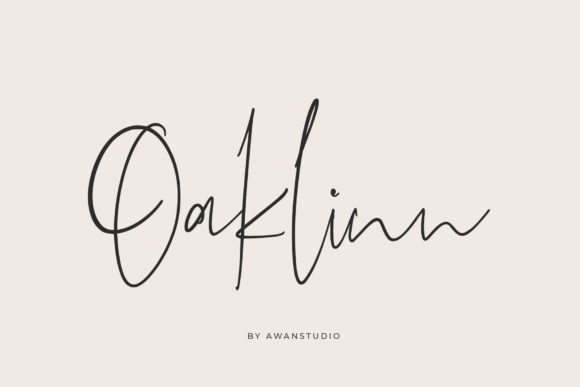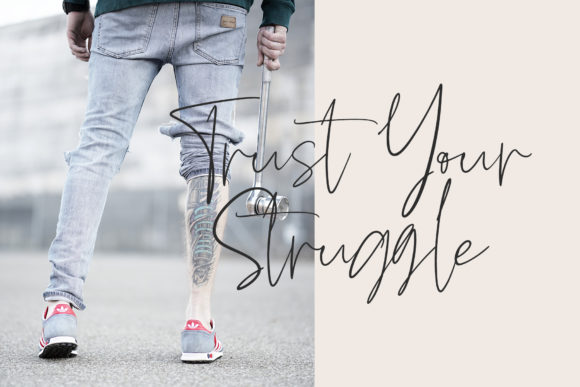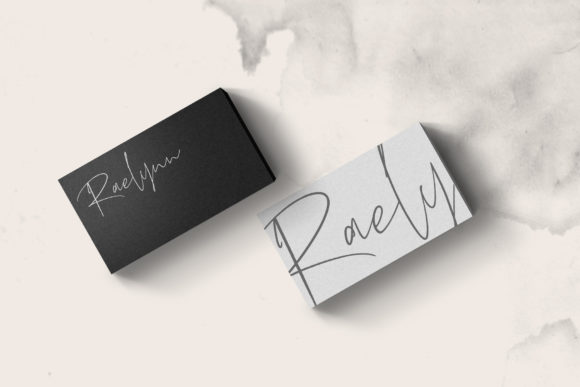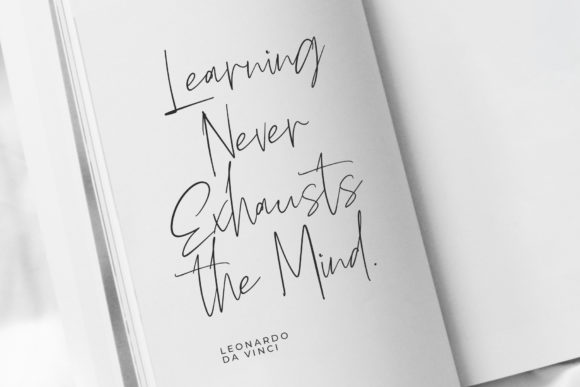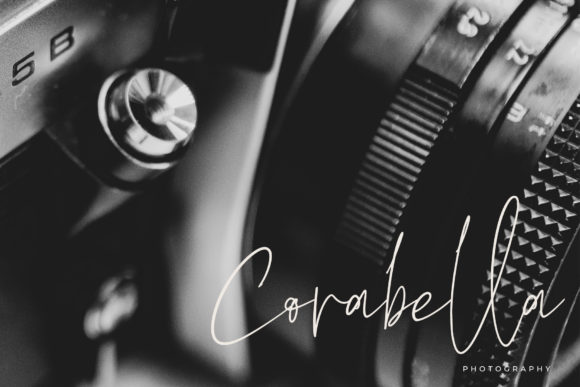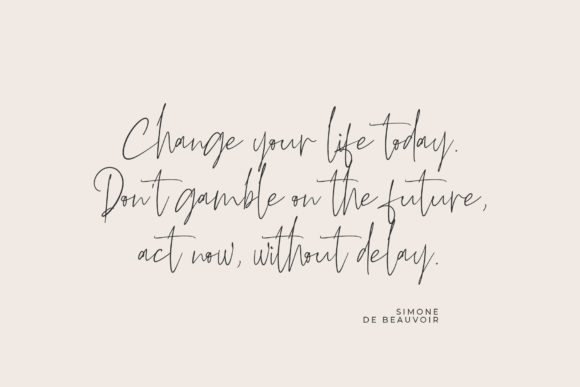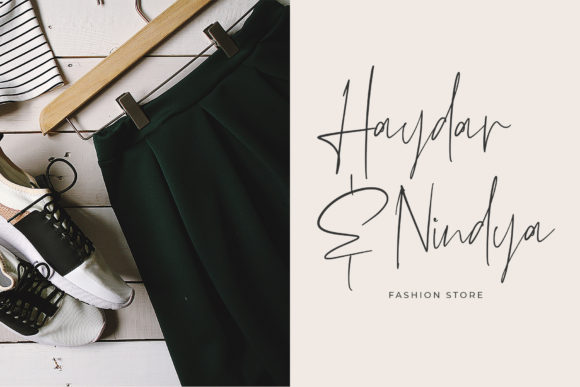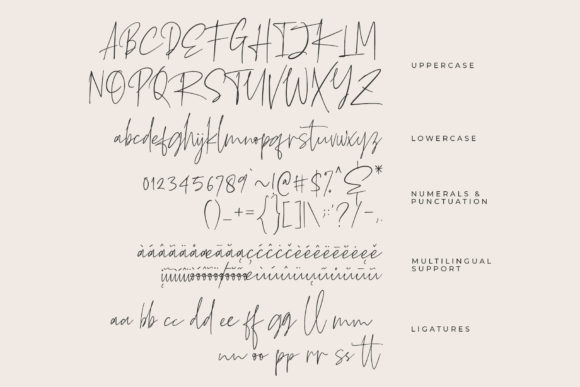
Oaklinn Script Font
About Oaklinn Script Font
Oaklinn is a stunning and elegant script with an organic charm. Get inspired by this unique typeface, and turn any crafts project into a stand out!